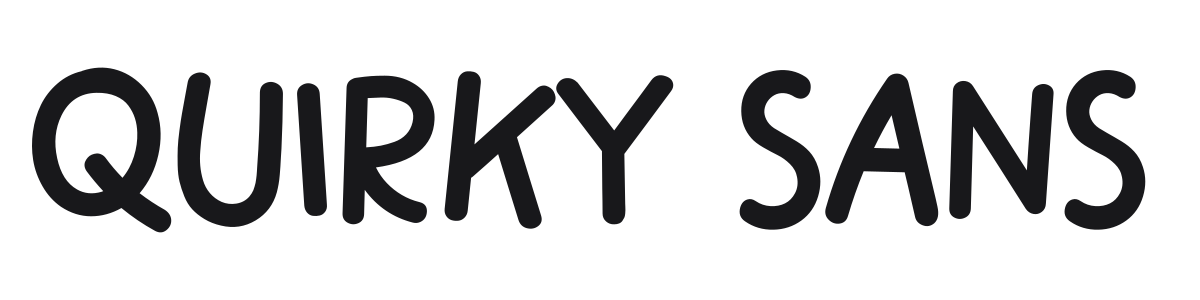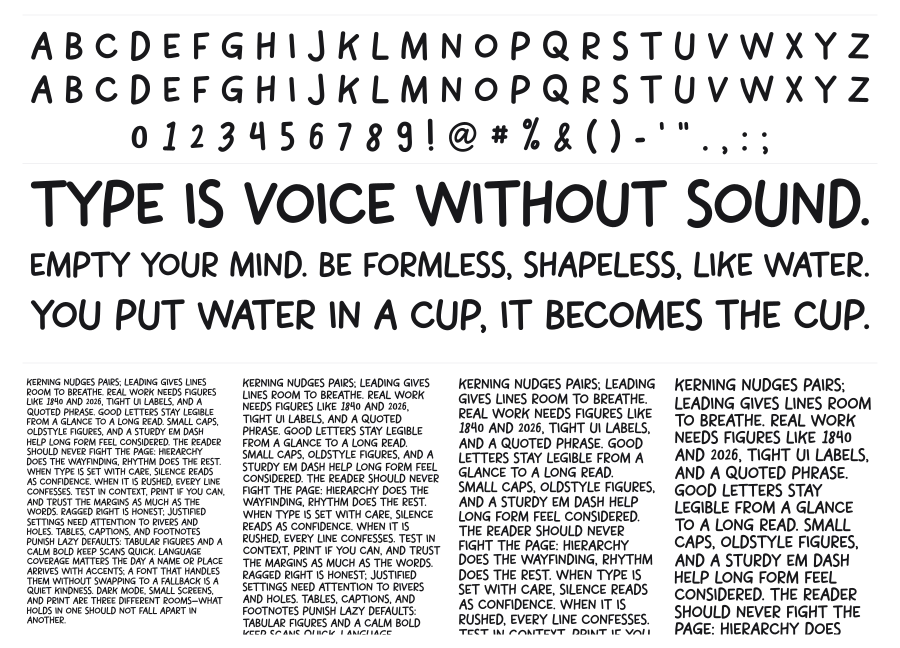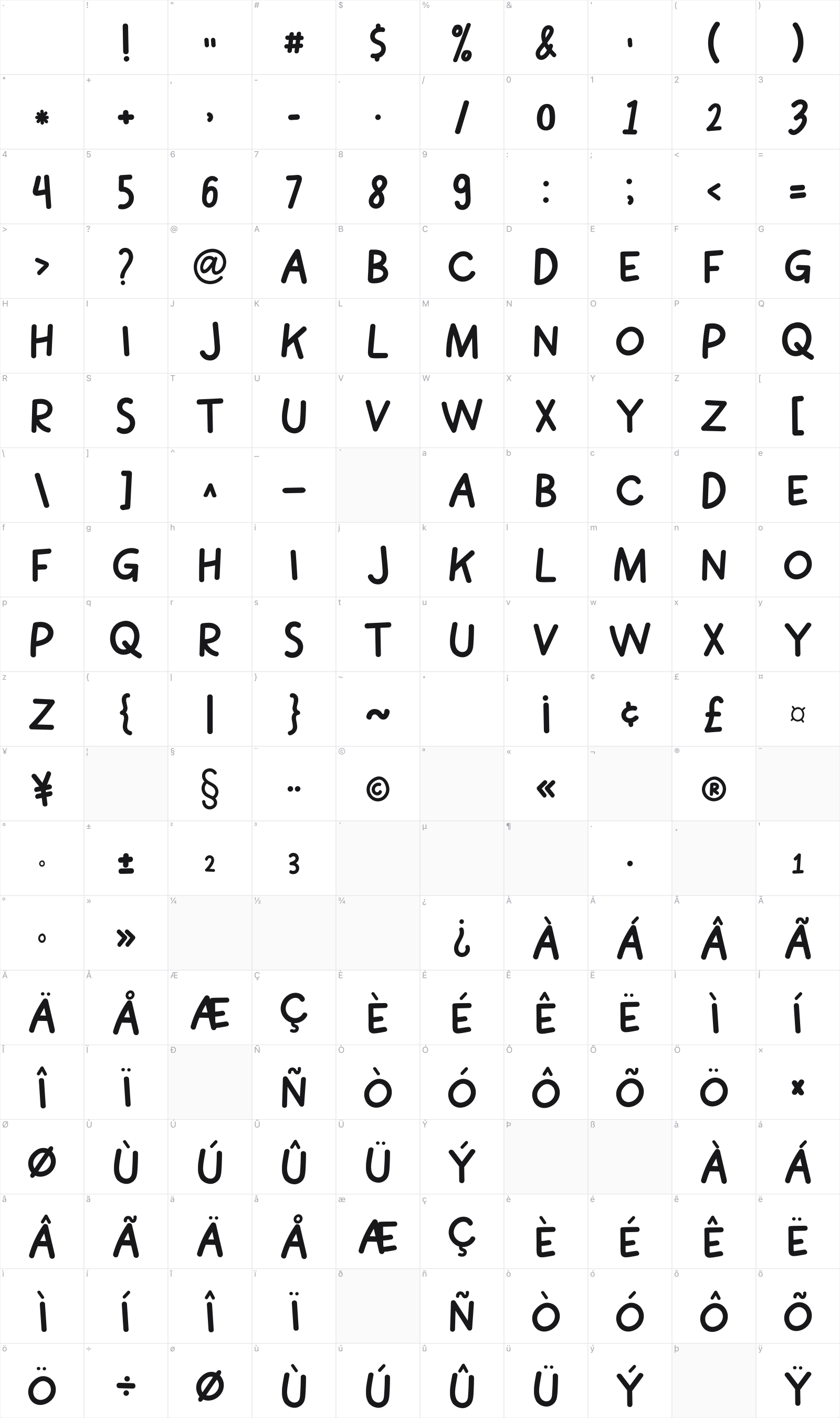
Quirky Sans
Quirky Sans is a bold rounded sans with a hand-drawn, slightly wobbly quality that keeps it feeling warm and alive. Each character carries subtle weight and alignment variations that push it well past a standard rounded geometric. It reads as cheerful and unpretentious at headline sizes.